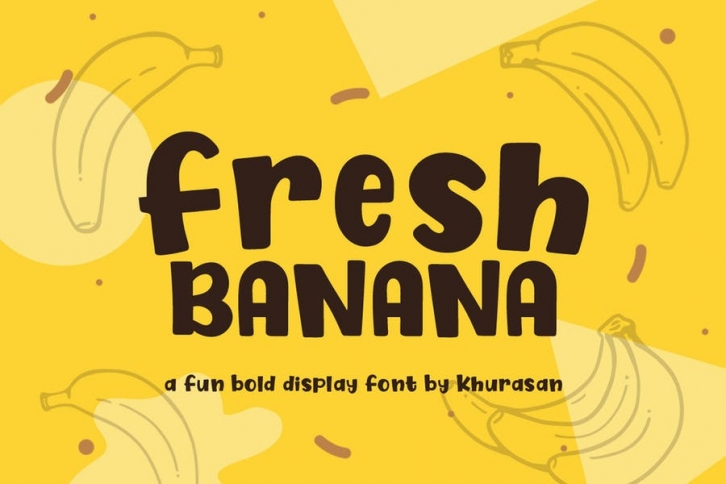
The Fresh Banana is a fun bold display font, fresh & modern style. Fresh Banana Font suitable for logo, branding, greeting card, poster and any design that you create.